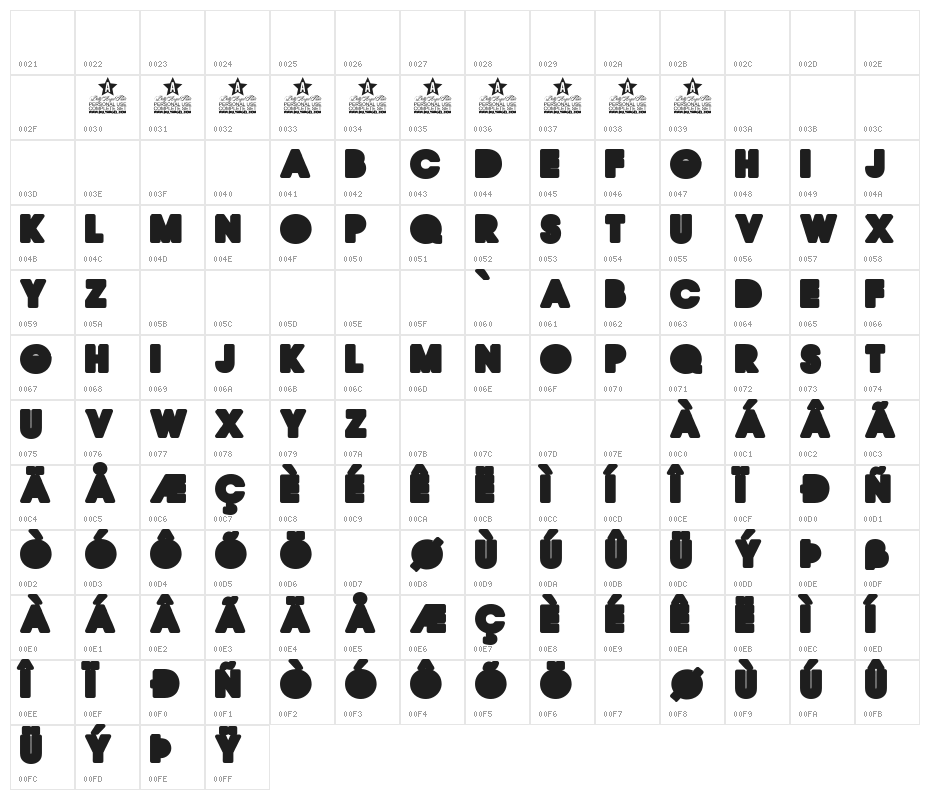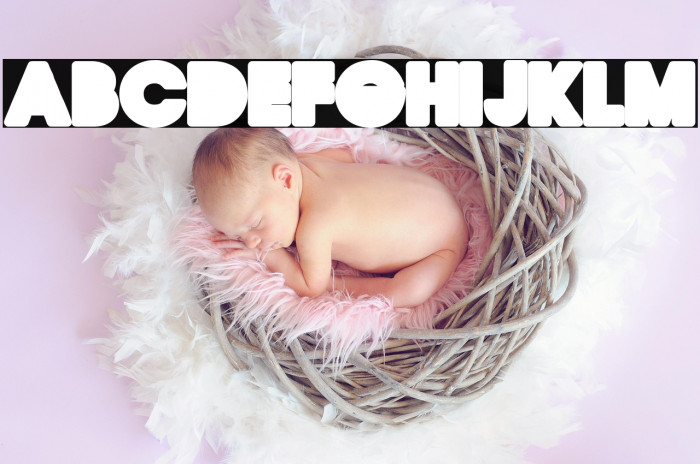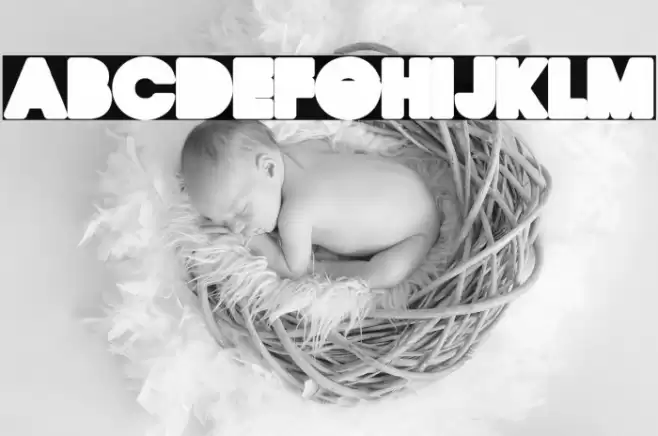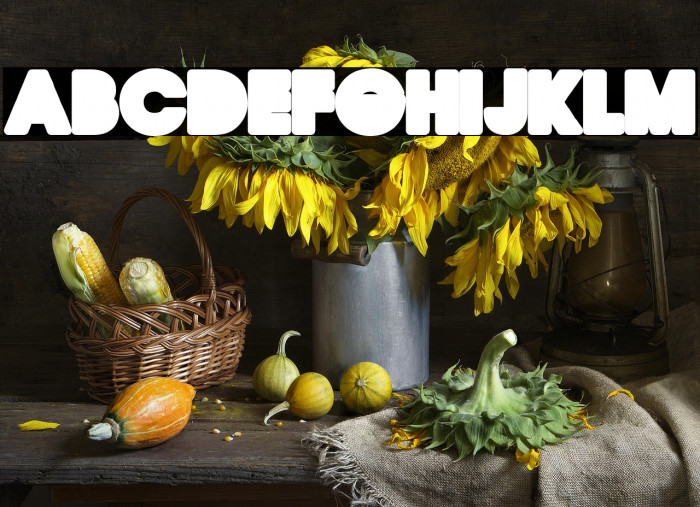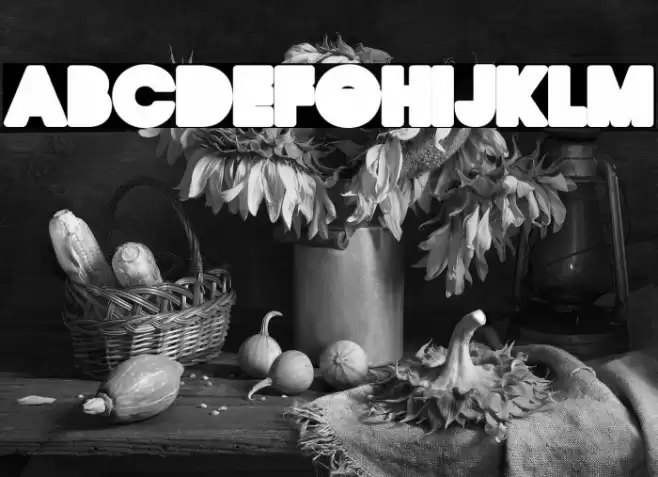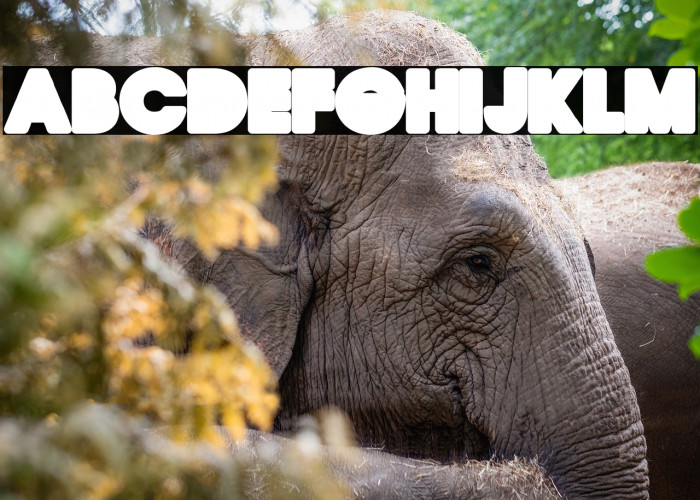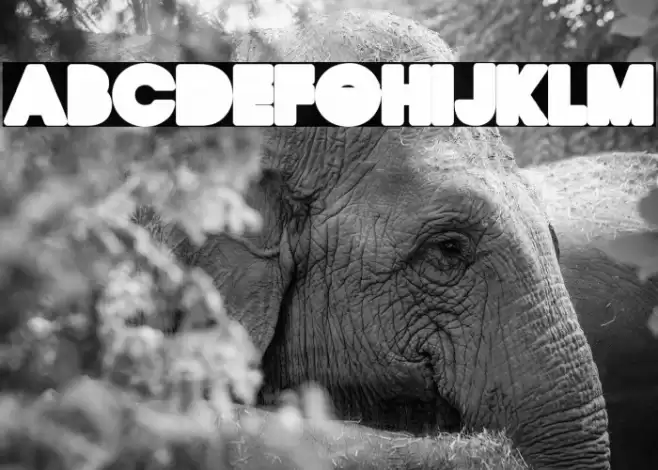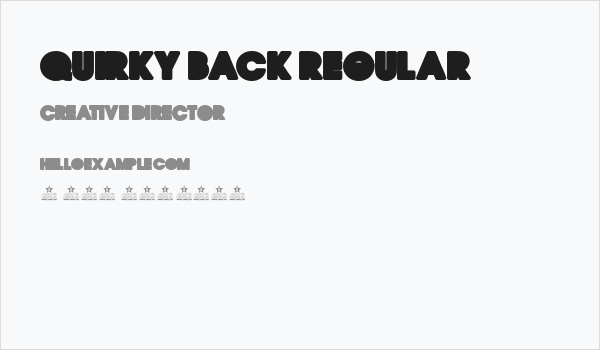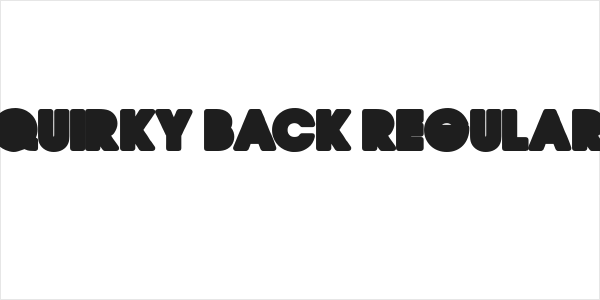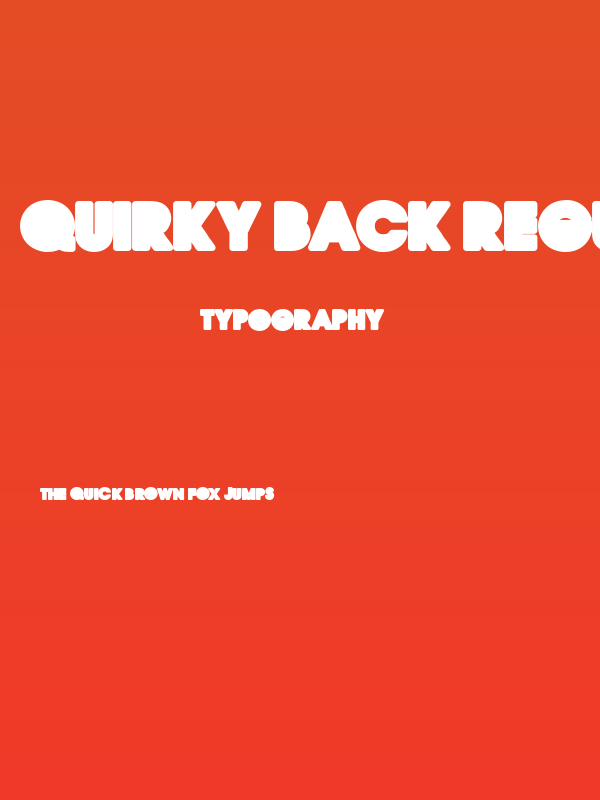
QUIRKY BACK Regular Font
QUIRKY BACK Regular Description
This font features a bold and playful design with thick, rounded characters that create a strong visual impact. The letters are uniformly wide, contributing to a cohesive and balanced appearance. The style is reminiscent of retro or vintage aesthetics, making it suitable for projects that require a touch of nostalgia or whimsy. The uppercase letters are particularly striking, with their bold forms and smooth curves. This font is ideal for creating eye-catching headlines, posters, or branding materials that need to stand out.
| Proposed Projects | Ideal for retro-themed posters, playful branding, eye-catching headlines, and creative advertising. |